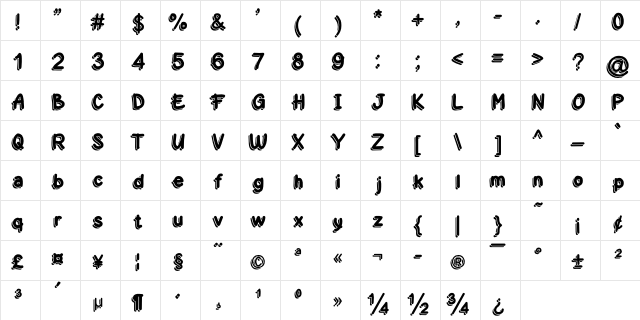
Netigen Shadow Regular
Design Context for Netigen Shadow Typeface
Netigen Shadow brings ornamental detail and strong personality to headlines and identities, where visual impact matters more than quiet functionality.
Font Pairing: Pair with a clean neutral sans-serif for body copy to let Netigen Shadow's character lead without overwhelming the composition.
Pro Tip: Use Netigen Shadow exclusively at display sizes — it was designed to be seen, not read at length. Let a neutral companion handle body copy.